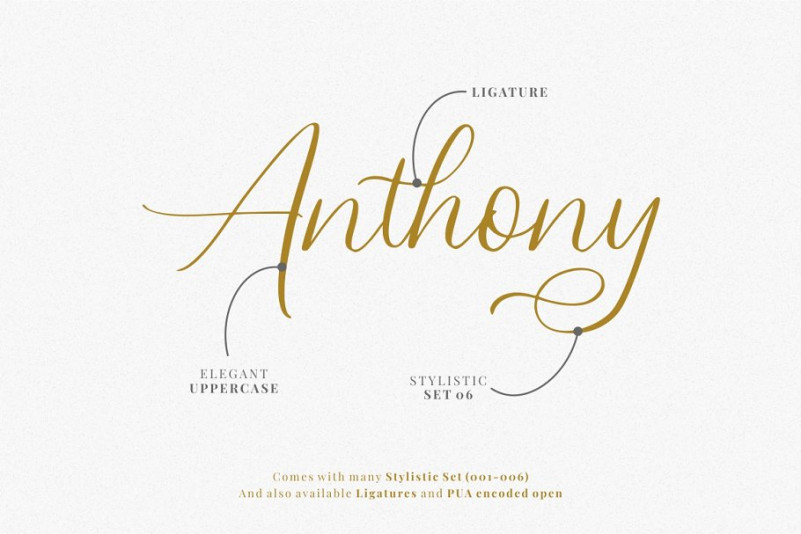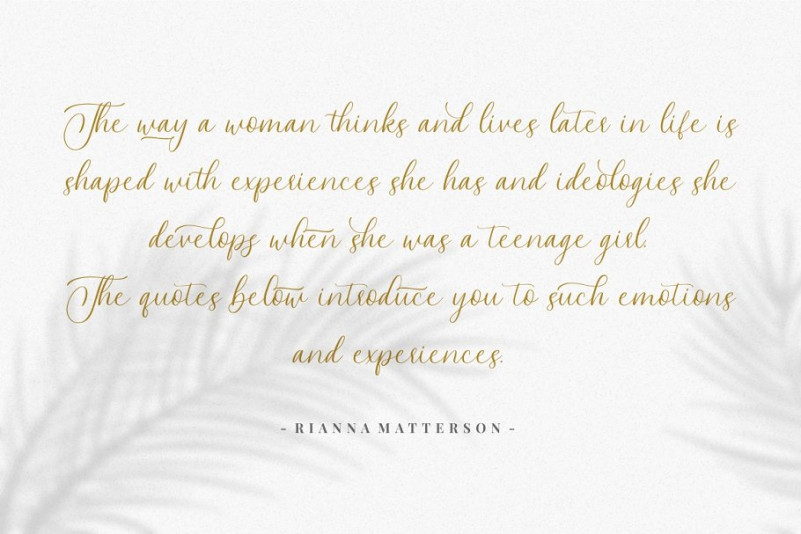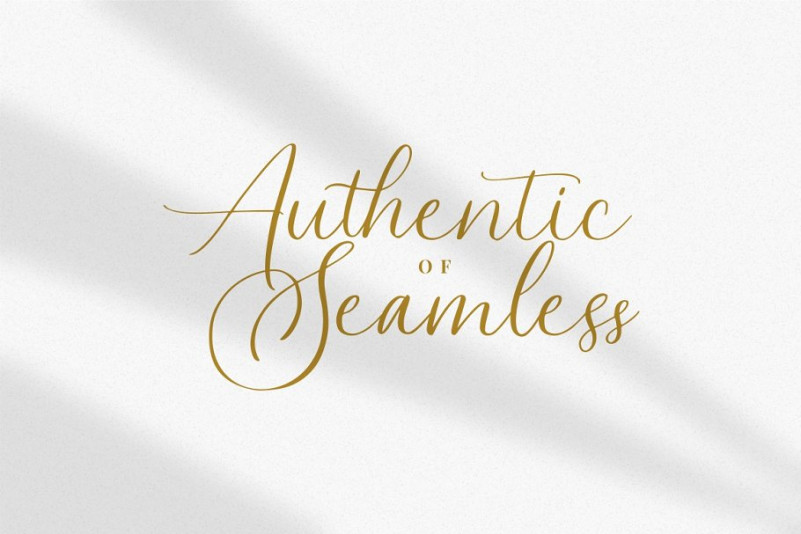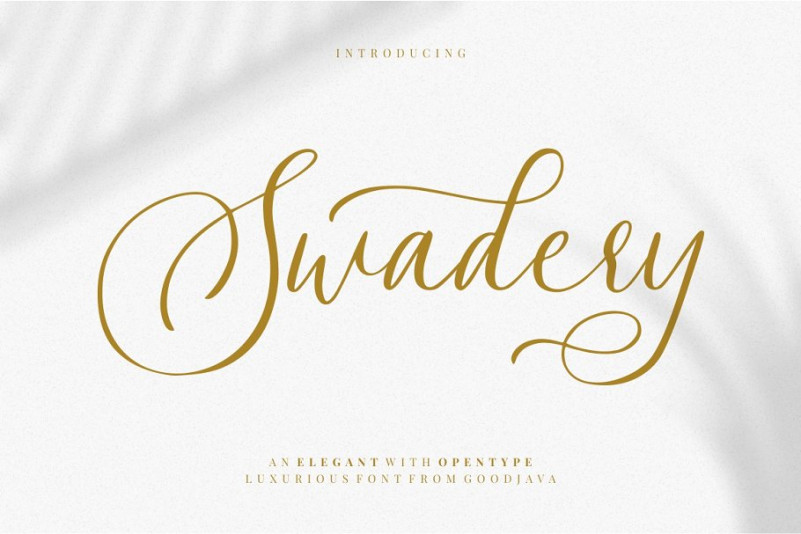
Swadery Script Font – Free Demo
Dear All. This is modern calligraphy script font, This font is to complement your design needs in making amazing works. Swadery Font designed and shared by Good Java Studio. Swadery Luxury Script font is a natural & modern handwritten font. I’ts Perfect for logo, invitation, stationery, wedding designs, social media posts, advertisements, product packaging, product designs, label, photography, watermark, special events or anything.